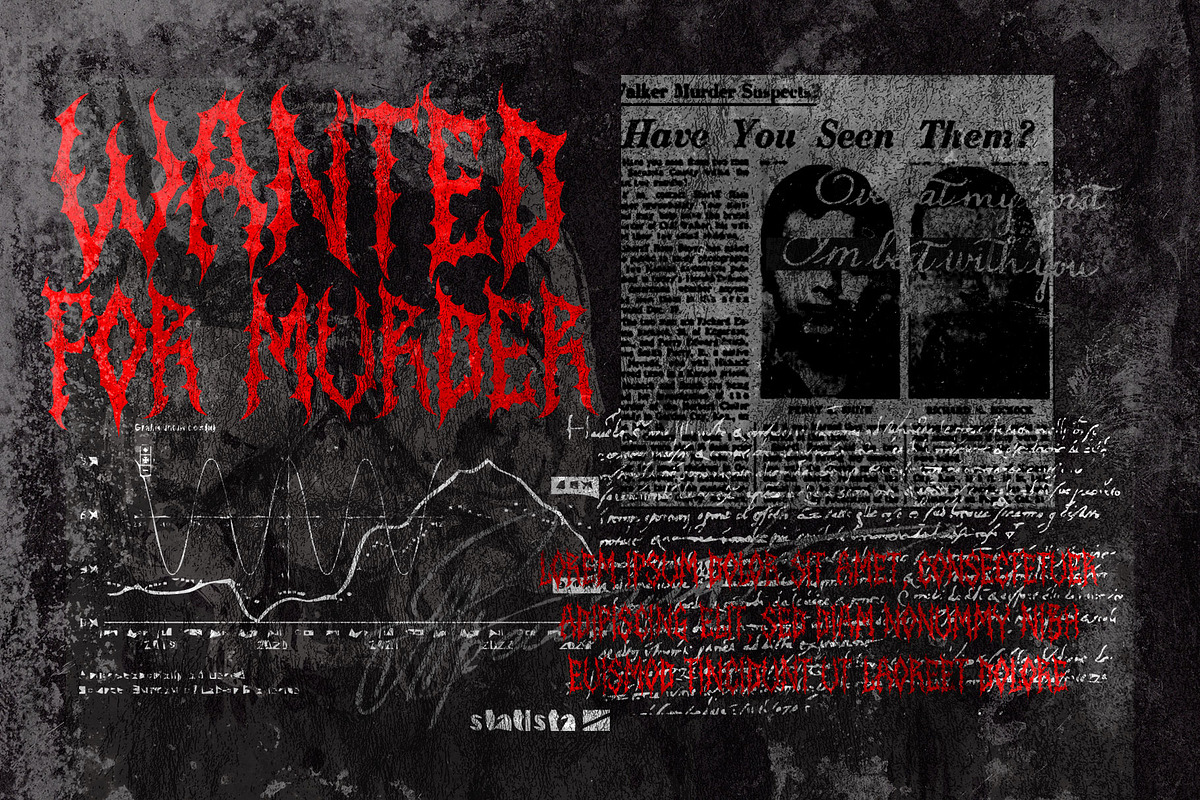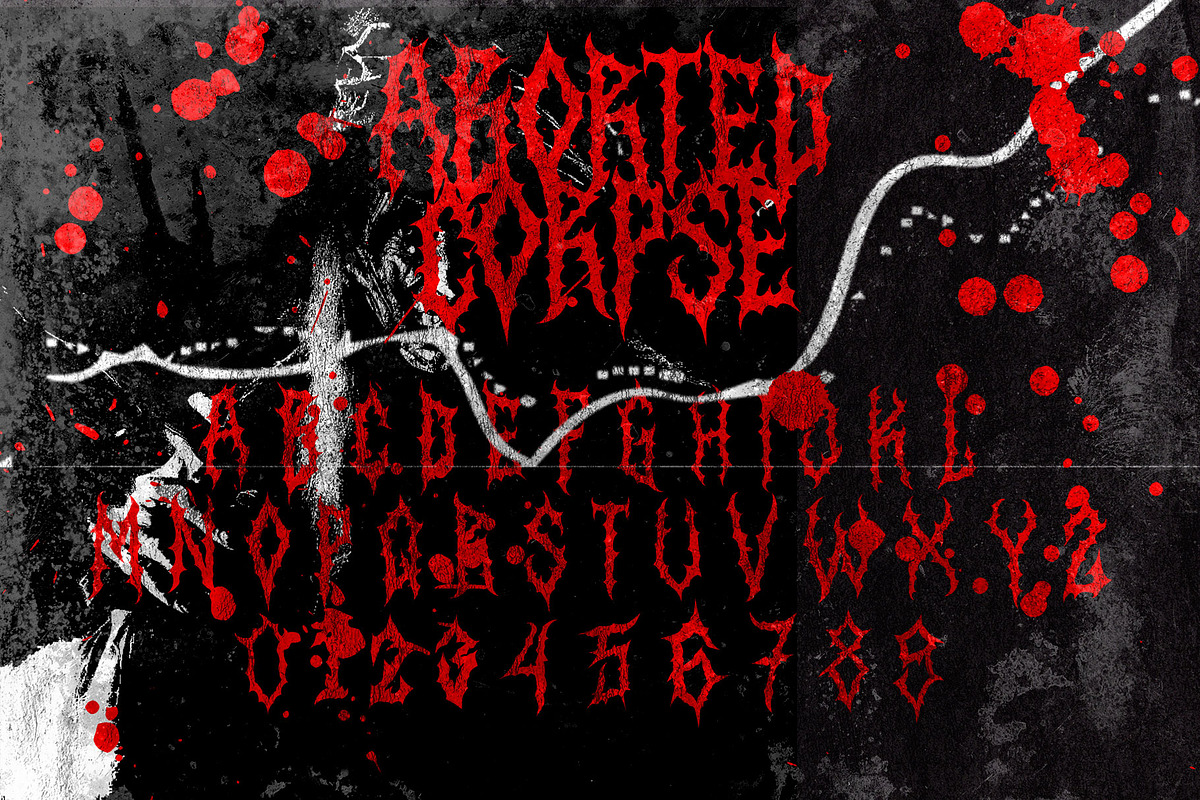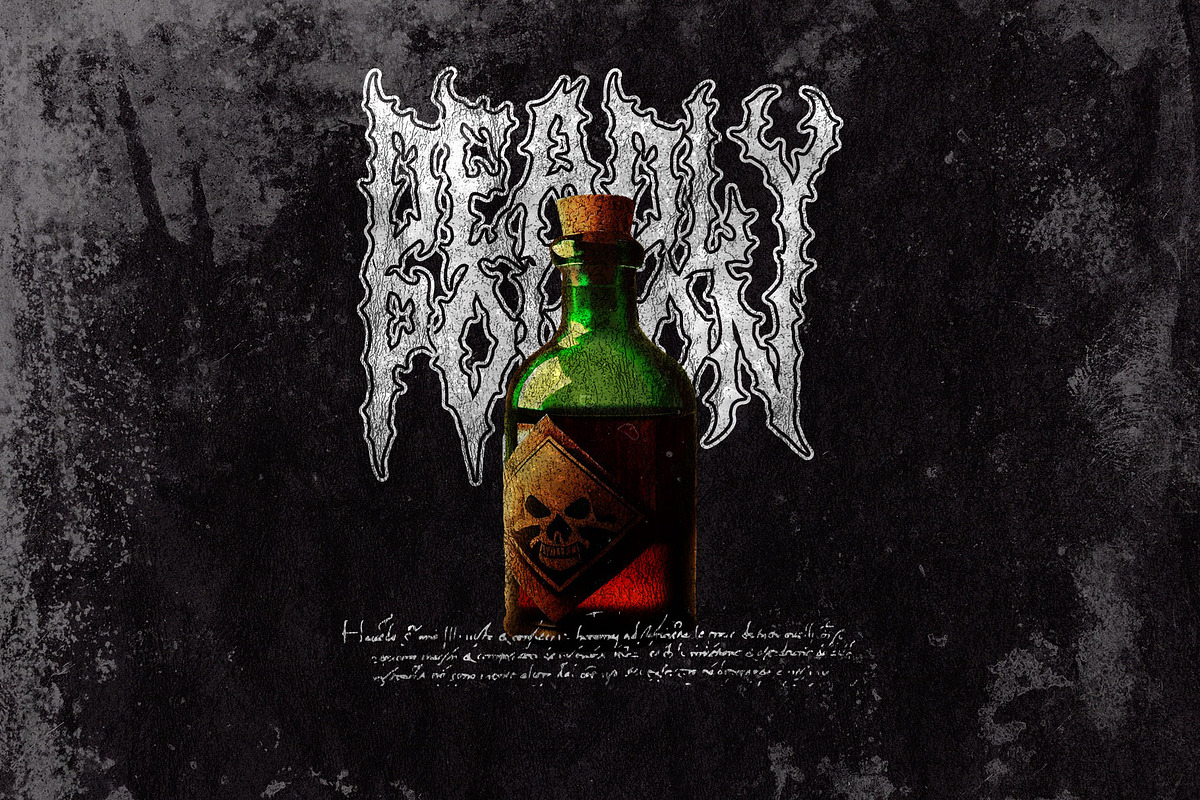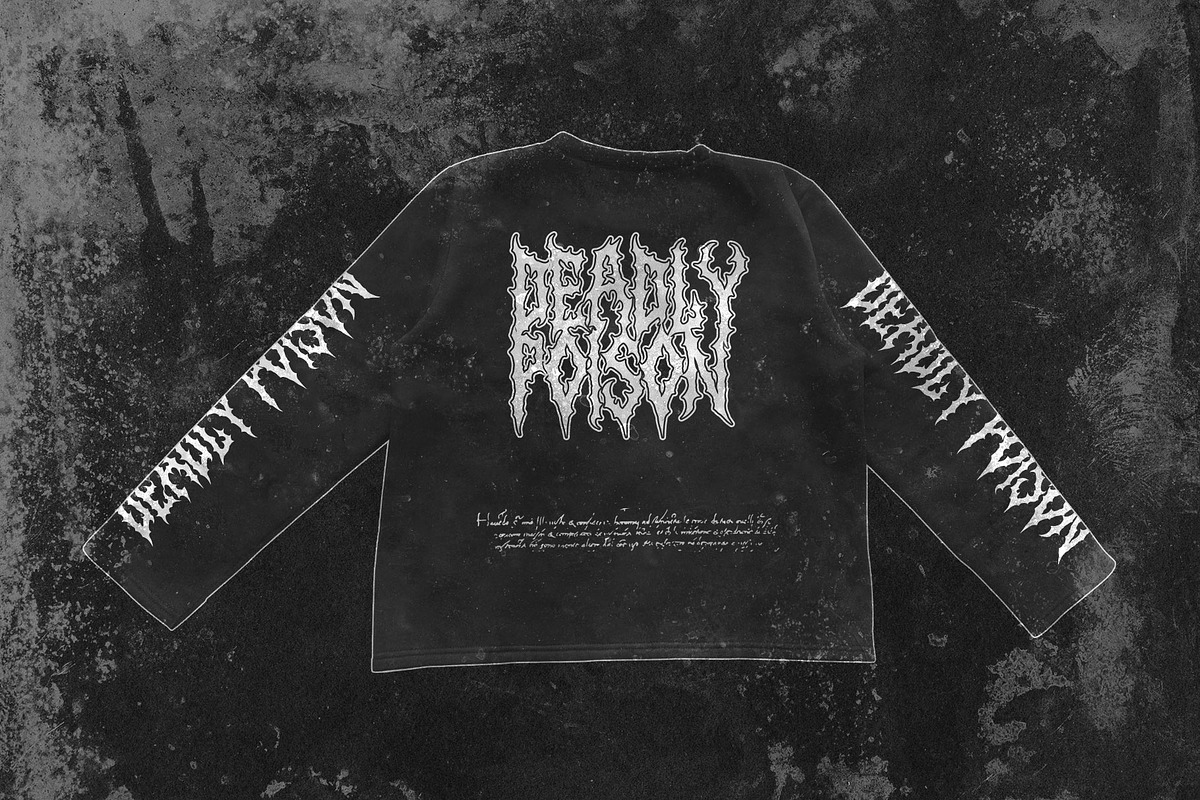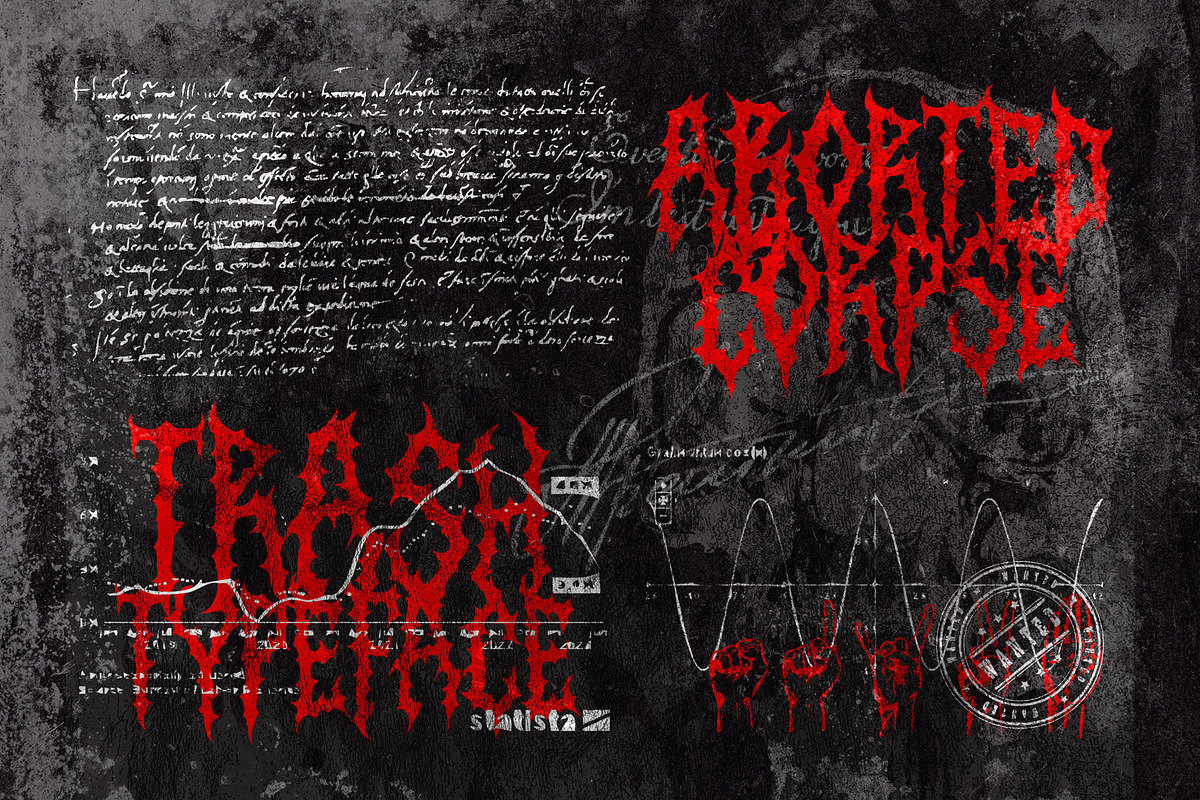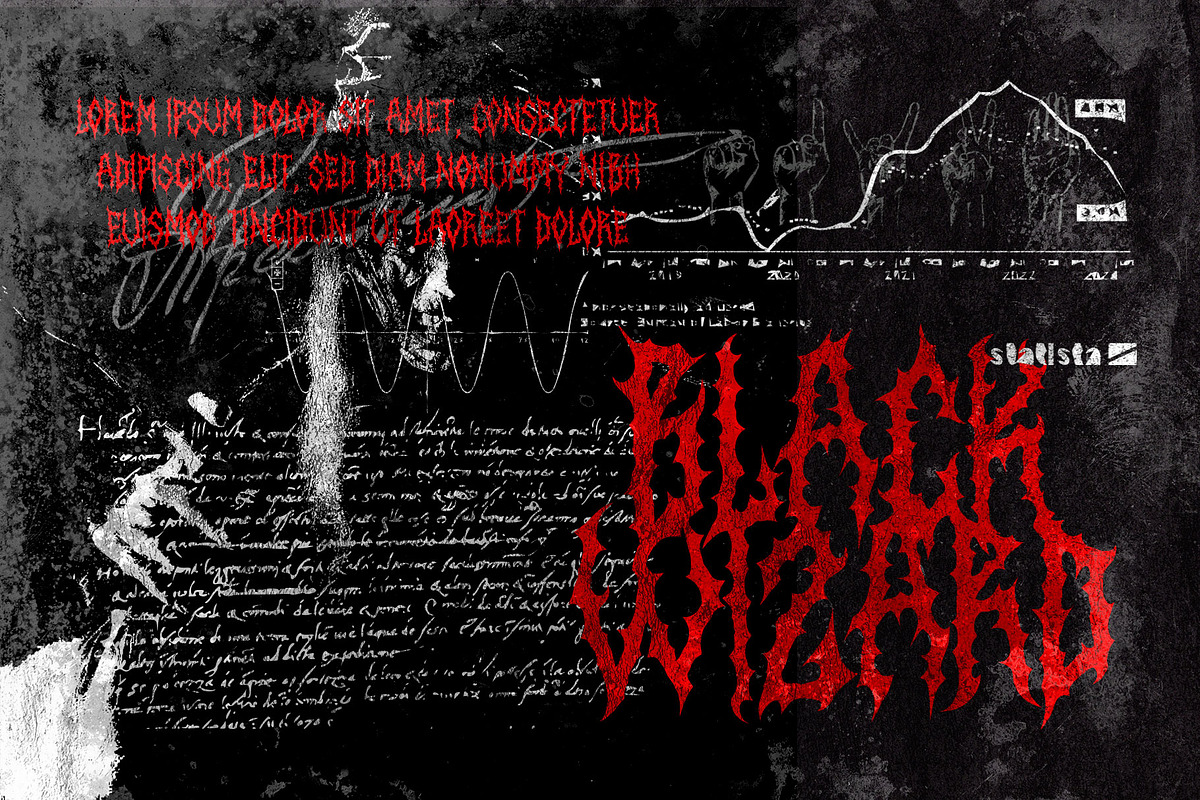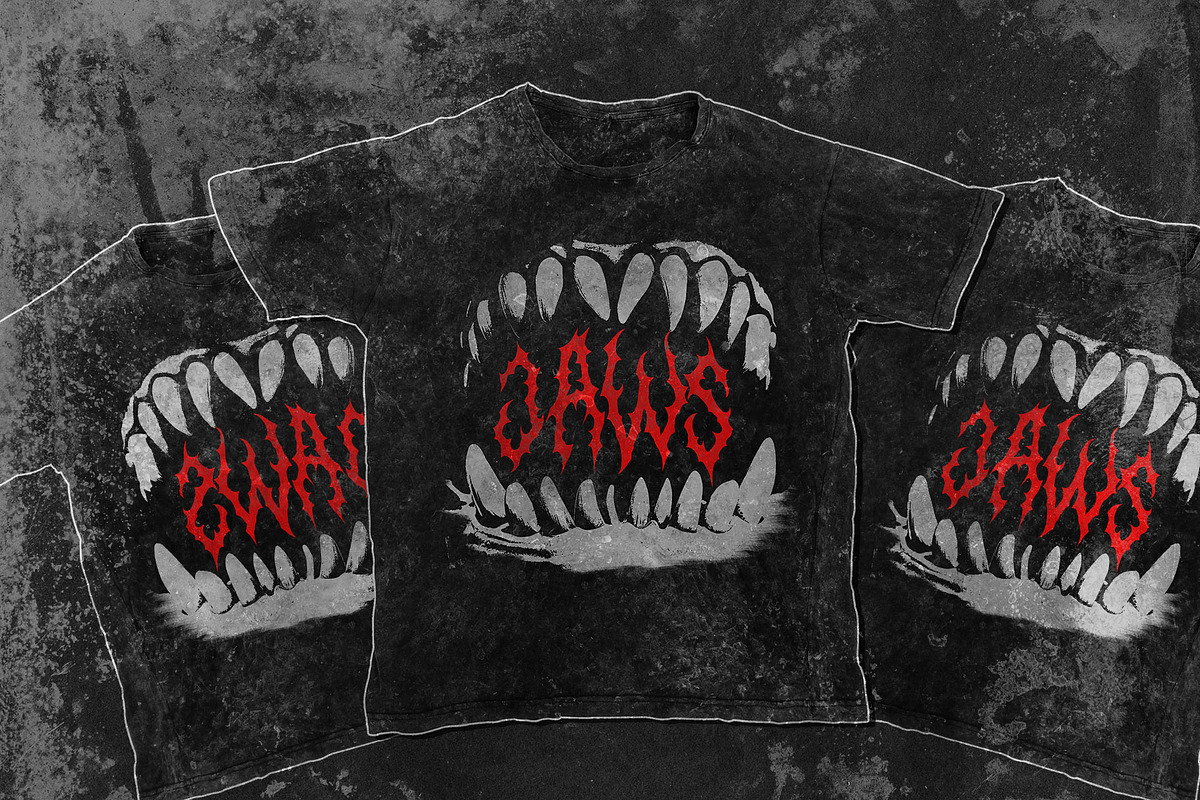
Aborted Corpse – Trash Typeface
Introducing Aborted Corpse a font that delves deep into the core of metal music, drawing inspiration from the theme of Horror. This font grounds your band’s identity in the very essence of the genre.
Aborted Corpse, earthy letterforms that intertwine with strength and resilience. Like the roots that seek nourishment from the soil, your music finds its sustenance from the depths of passion and emotion. The intricate design reflects the intricate network of roots that connect and empower the metal community.
Embrace the power of Metal Font for your band’s logos, album artwork, and promotional materials. With each letter, you symbolize the deep-rooted spirit that drives metal music forward. Let your audience feel the visceral connection to the roots of your sound.